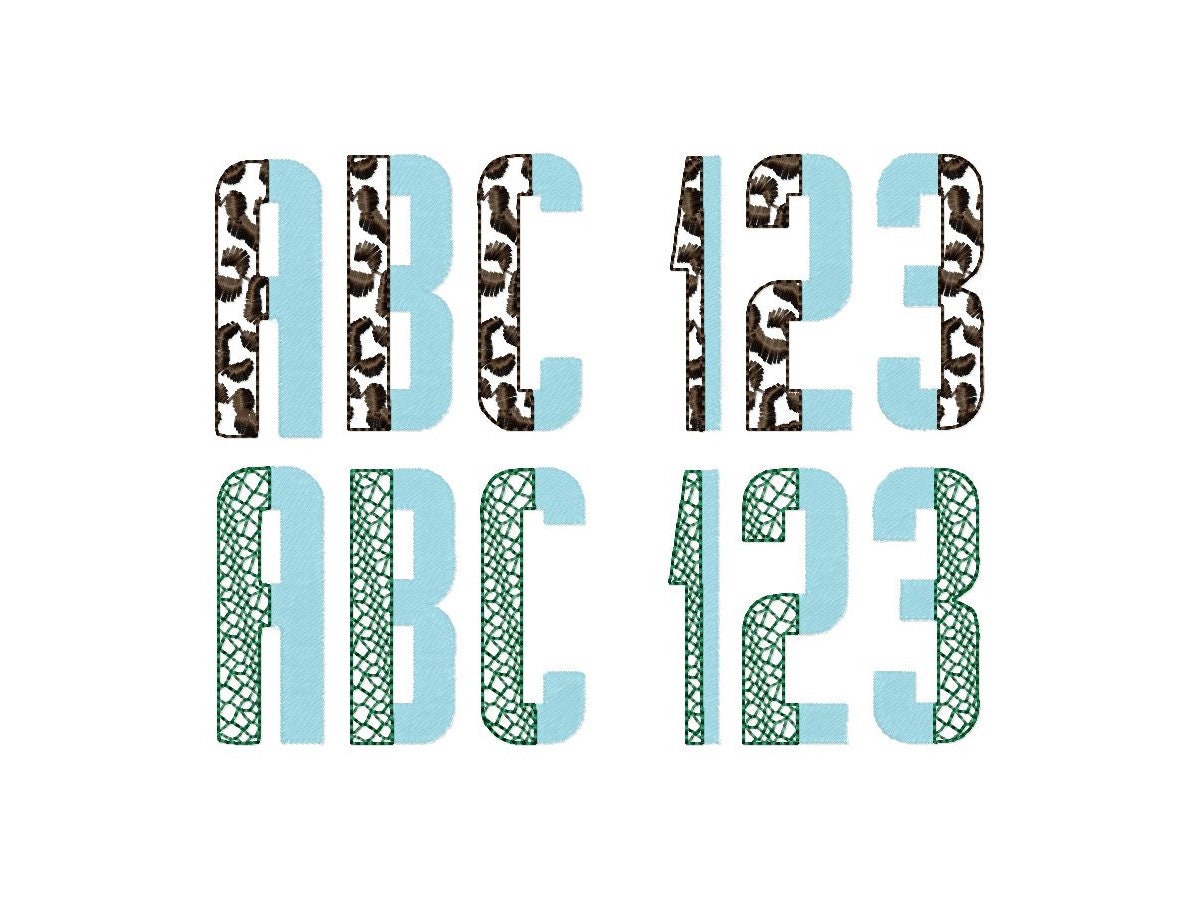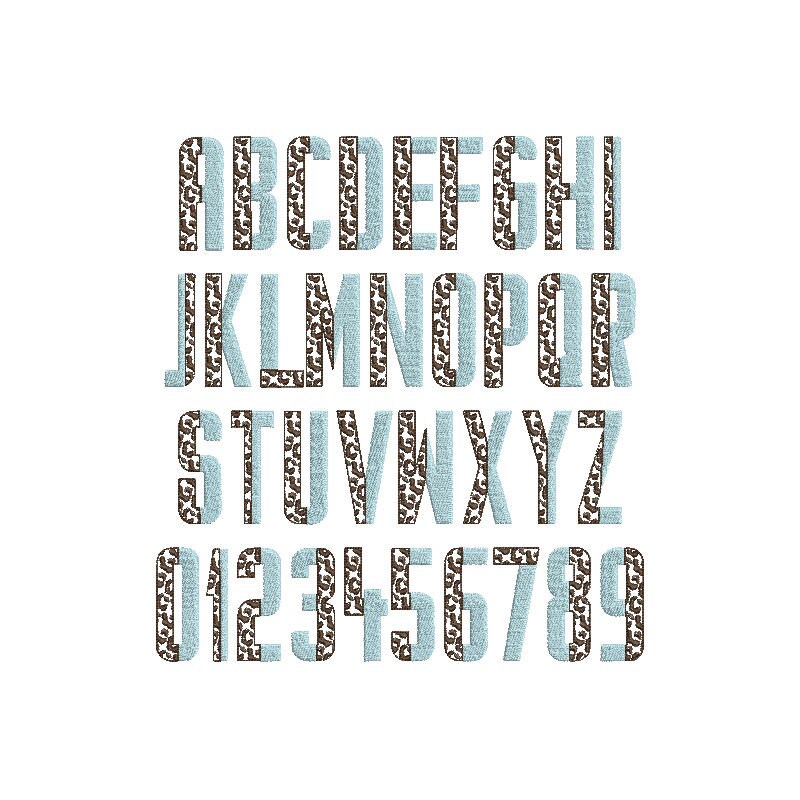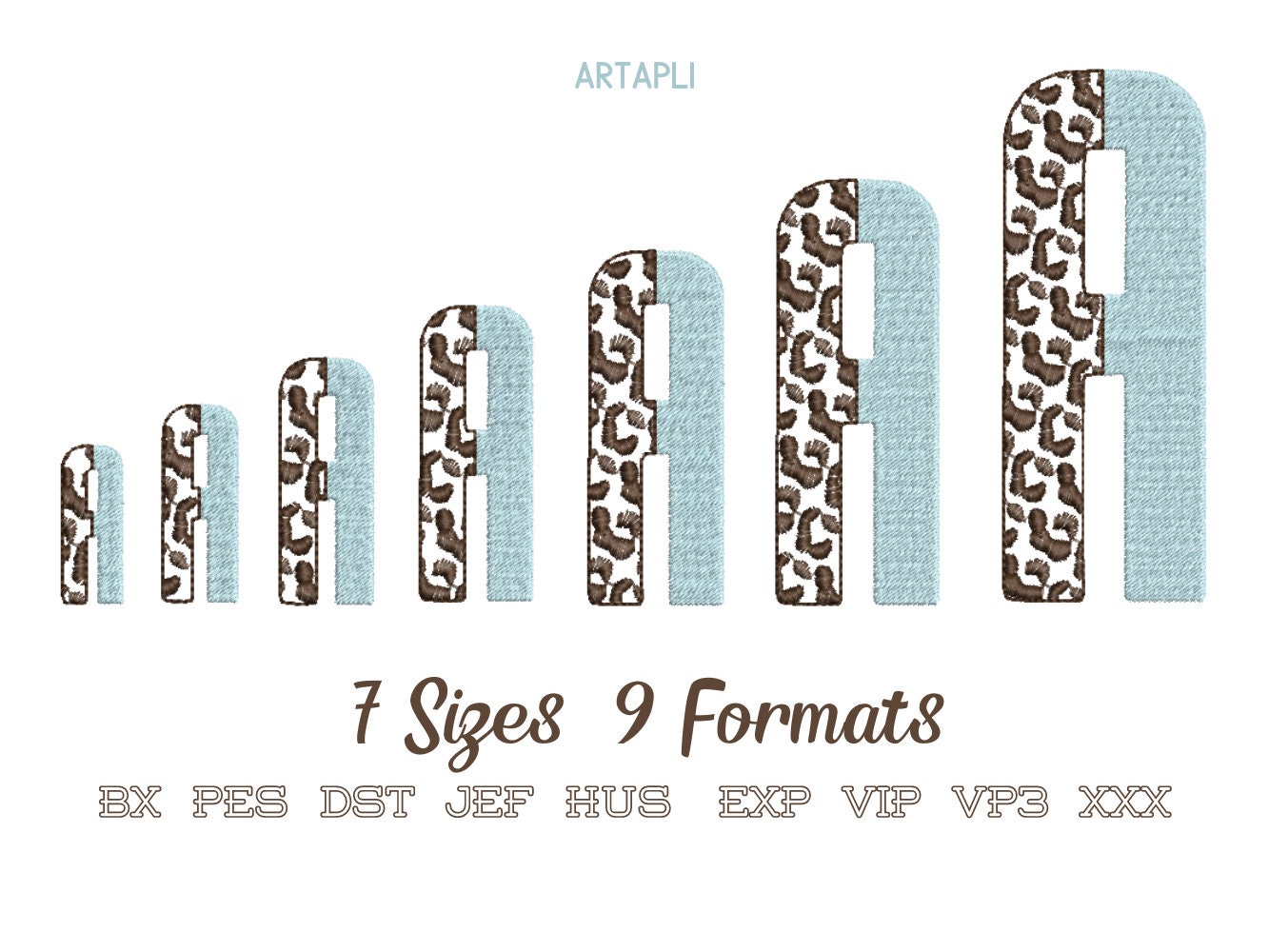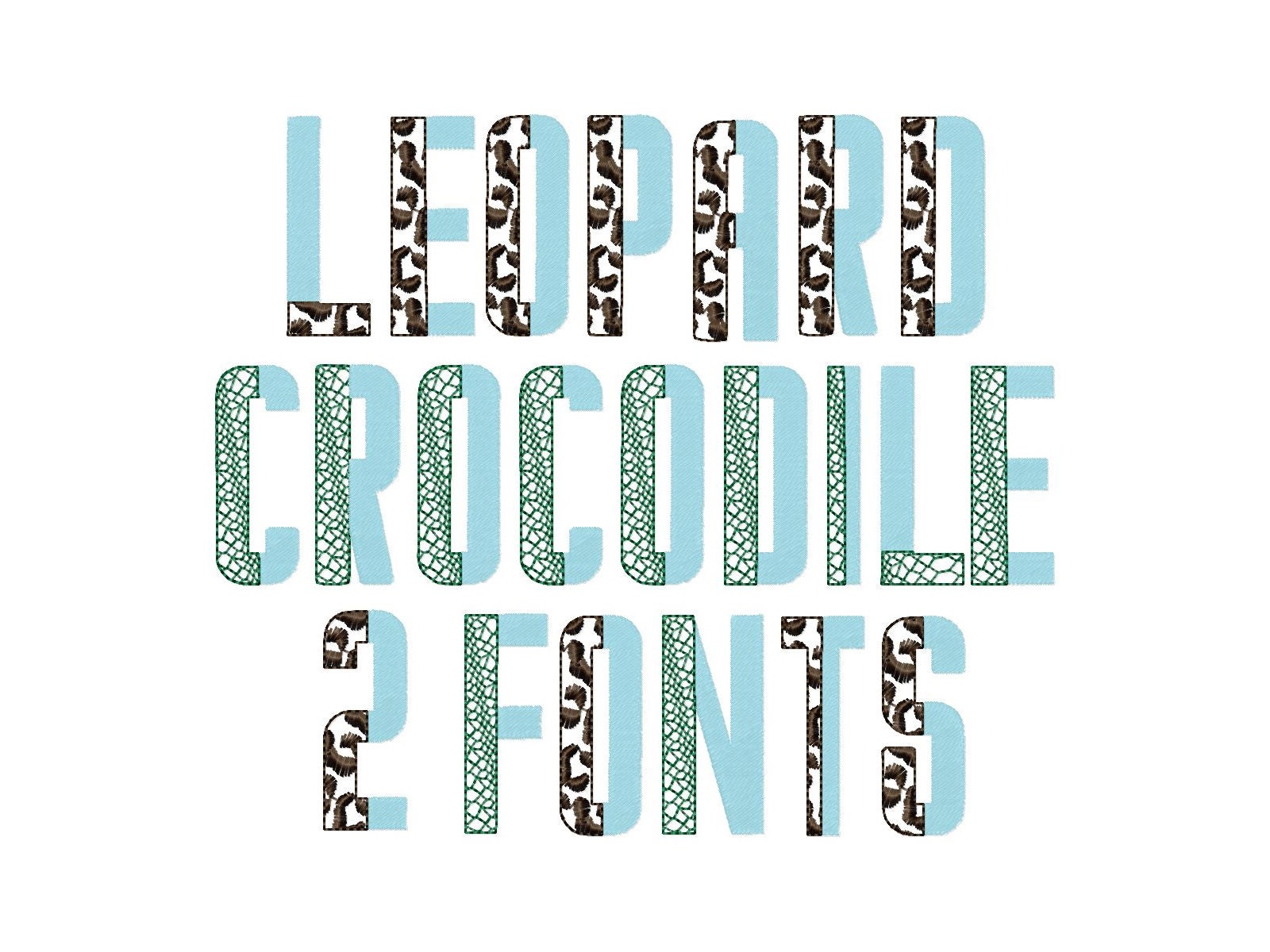
Duo Split Font SET of 2 Wild Leopard and Crocodile two colors alphabet machine embroidery designs duotone block fill stitch monogram +BX
Set of 2 fonts
* Leopard spots font
* Crocodile print font
Included uppercase letters A-Z, and numbers 0-9.
Leopard spots and Crocodile print are part of the design. The background fabric looks through. Stunning effect!
The plain part of the letters is a fill stitch.
Combine letters and numbers and merge as you wish!